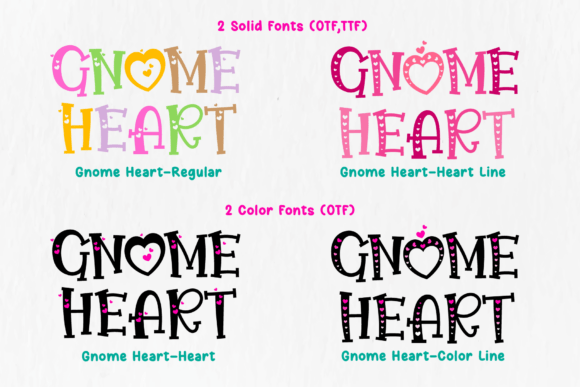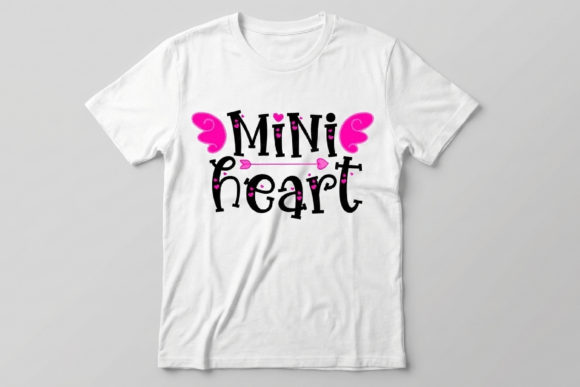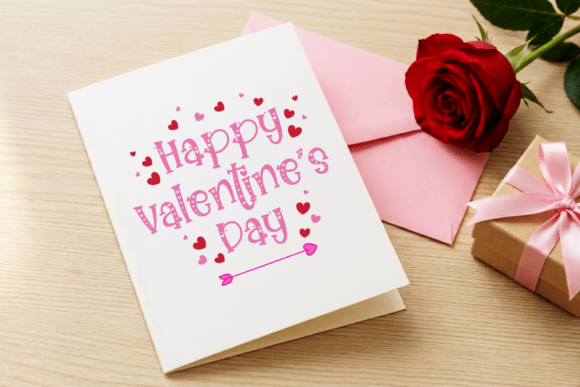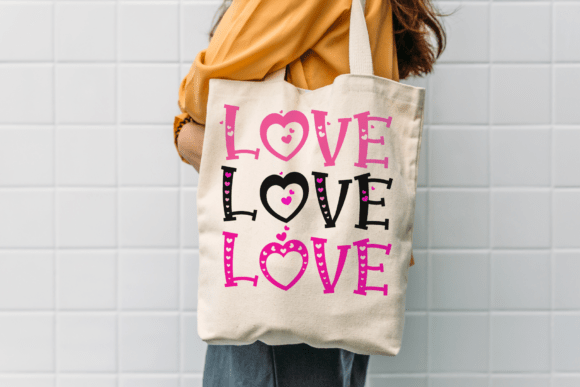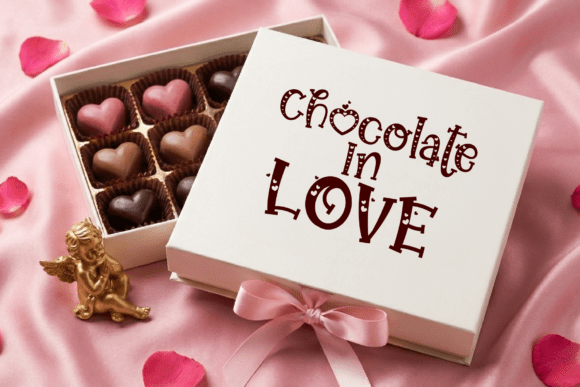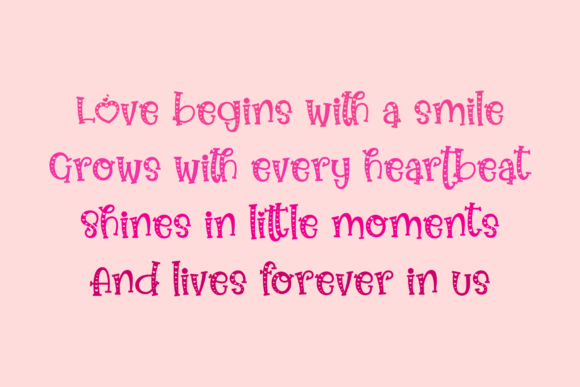
The Gnome Heart Font: A Lovely and Playful Addition to Your Design Toolbox
Have you ever been working on a design project, and suddenly, you just can’t seem to find the right font? I recall a particularly frustrating experience while designing a Valentine’s Day card for a client. I wanted something that exuded love, happiness, and playfulness, but every font I tried seemed either too bland or too over-the-top. That’s when I stumbled upon the Gnome Heart font, and it instantly became the perfect fit for my project.
An Honest Review of Gnome Heart Font
What I Love About Gnome Heart Font ✨
- ✅ The font comes in 4 styles: 2 color fonts with adorable heart decorations and 2 solid fonts in black that can be easily recolored.
- ✅ It’s perfect for Valentine’s Day designs, romantic projects, cute crafts, and cheerful creative endeavors.
While the Gnome Heart font is an excellent addition to any design toolbox, there are a few things to keep in mind:
- 🤔 The font’s playful nature might not make it suitable for more formal or professional designs.
The Inspiration Behind Gnome Heart Font
The Gnome Heart font was designed with love and happiness in mind. The creator, a passionate typographer, wanted to craft a font that would bring a touch of whimsy and playfulness to designs. Inspired by the magic of Valentine’s Day and the joy of sharing love with others, the Gnome Heart font was born.